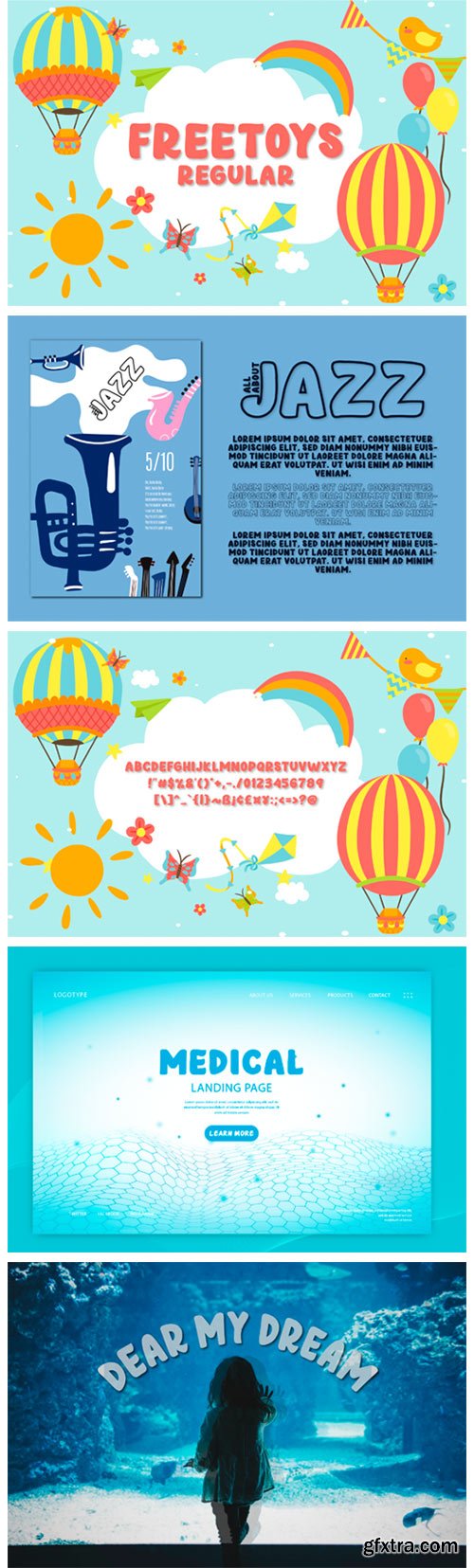
Freetoys Regular Font
Freetoys Regular is inspired by the fun of the children that is described through the arrangement of letters. This font is very suitable to be applied in the film industry, especially on cheerful themes!